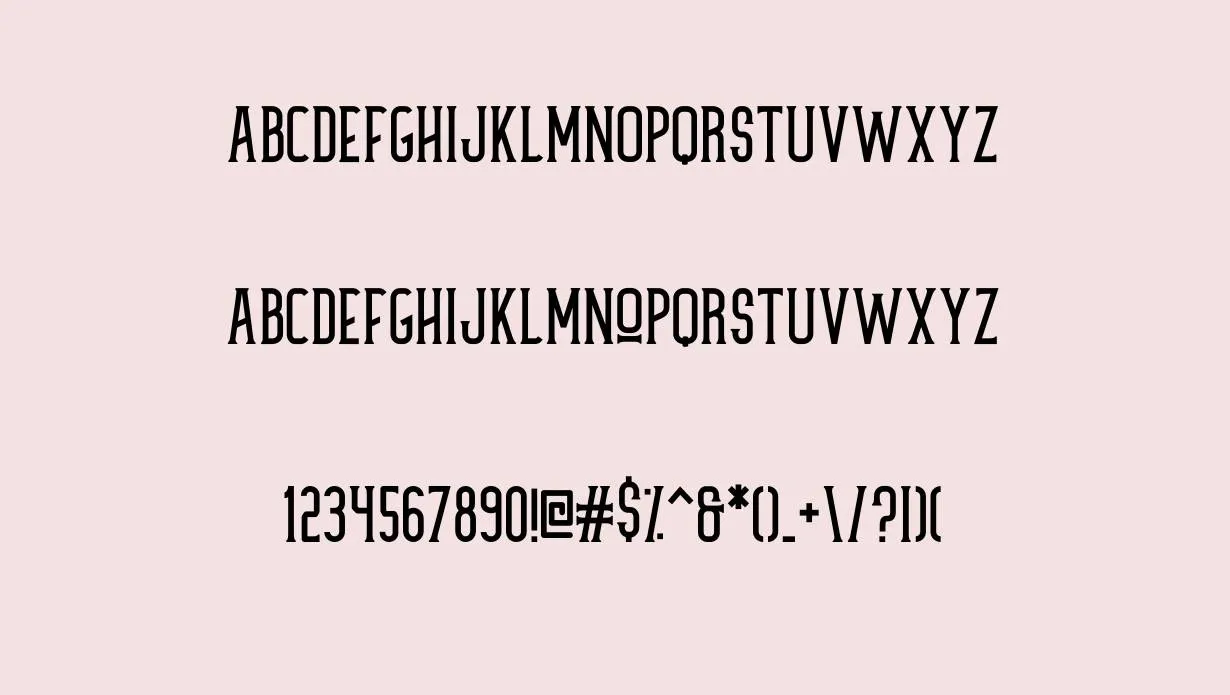
Grodna Font is a versatile and contemporary typeface that effortlessly blends sophistication with simplicity. The clean lines and well-balanced proportions make it suitable for a wide range of design applications, from professional documents to creative projects.
Grodna Font exudes a subtle class without overwhelming the viewer, making it a reliable choice for diverse design needs, where a touch of modern elegance is desired.